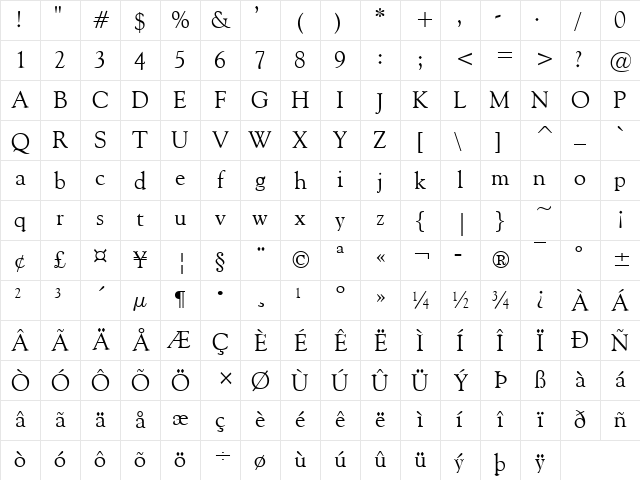
Carnegie Regular
Carnegie Family
Complete Carnegie Regular glyph index. Displaying only characters natively supported by Carnegie Regular font.
Design Context for Carnegie
Carnegie is a composed and adaptable typeface that performs quietly and consistently across a wide range of design contexts.